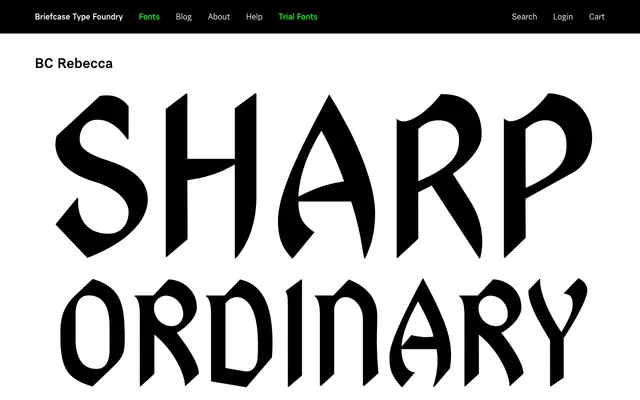
A serif typeface from Briefcase Type Foundry with limited publicly available detail on the page scraped.
BC Rebecca is a serif release from Briefcase Type Foundry, though the page as scraped contained insufficient detail to characterise its weights, language support or specific stylistic influences. Based on the foundry's broader output, it is likely suited to text and editorial contexts. Further detail would require a more complete page capture.
The name and foundry context suggest a classical serif design; without further page detail, transitional serif is the most probable subcategory for a text-focused serif from Briefcase Type Foundry.